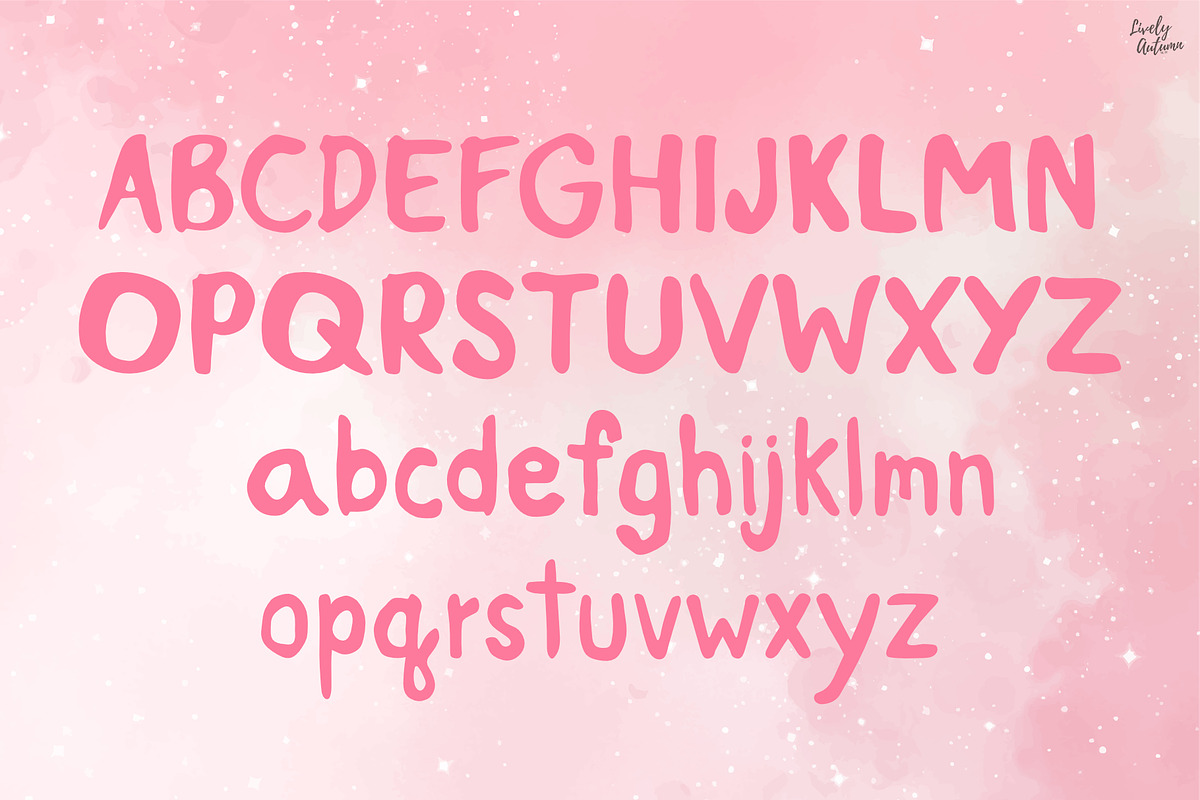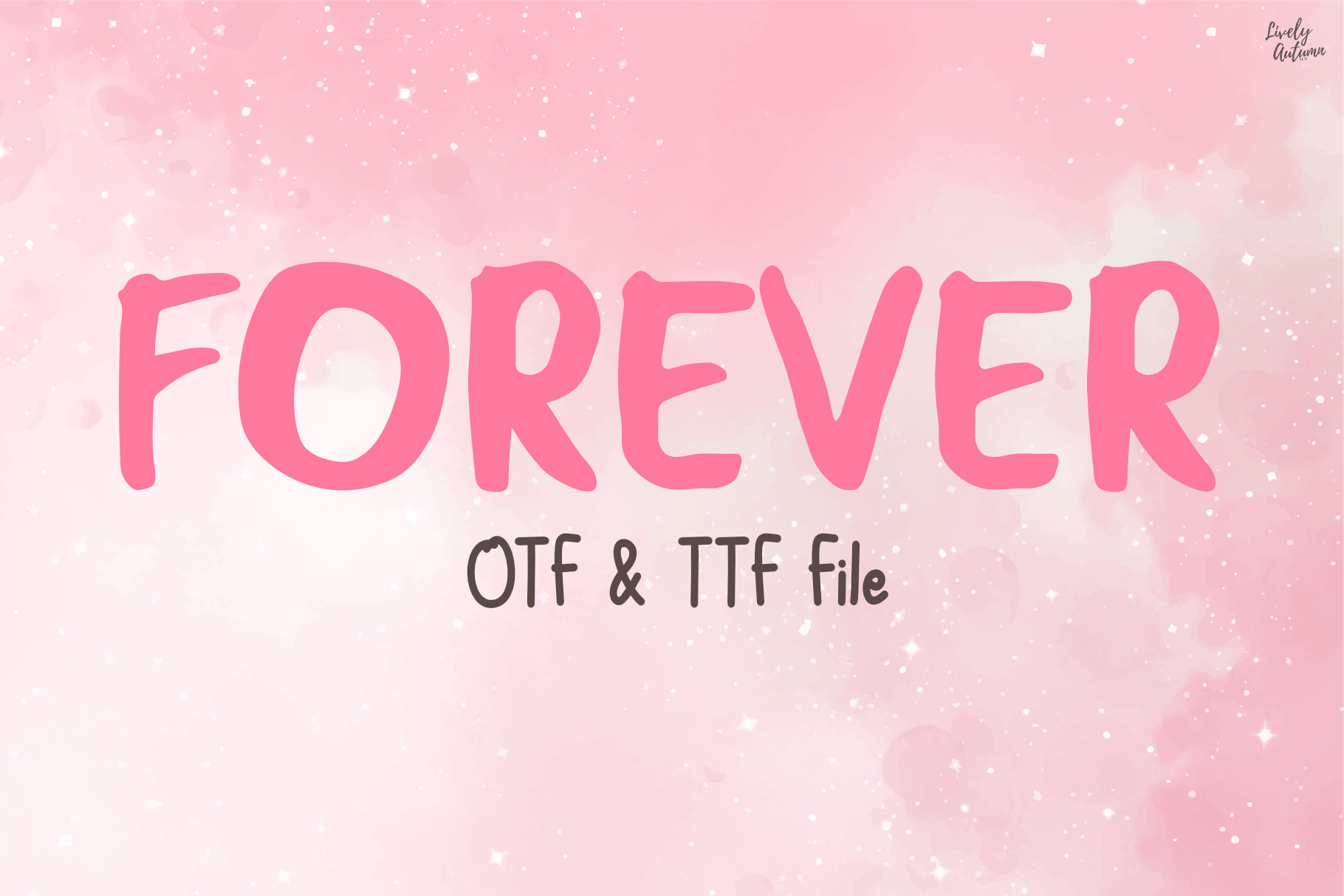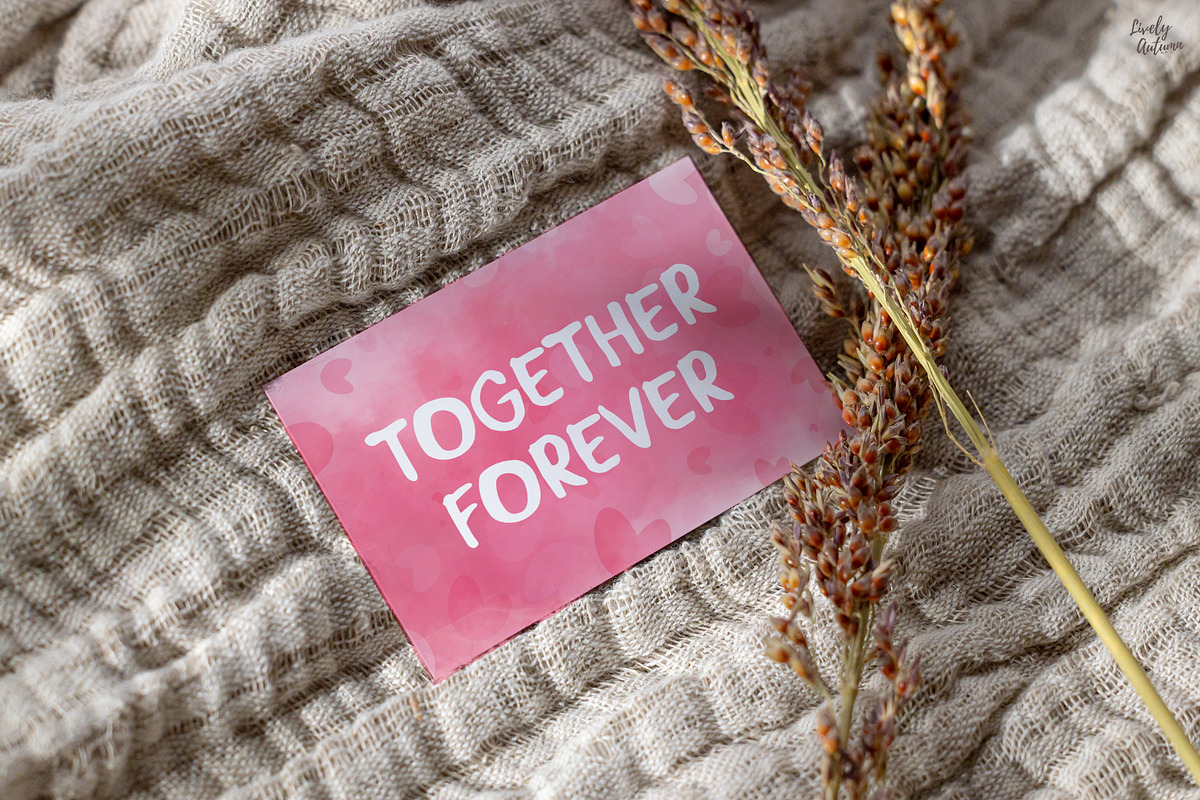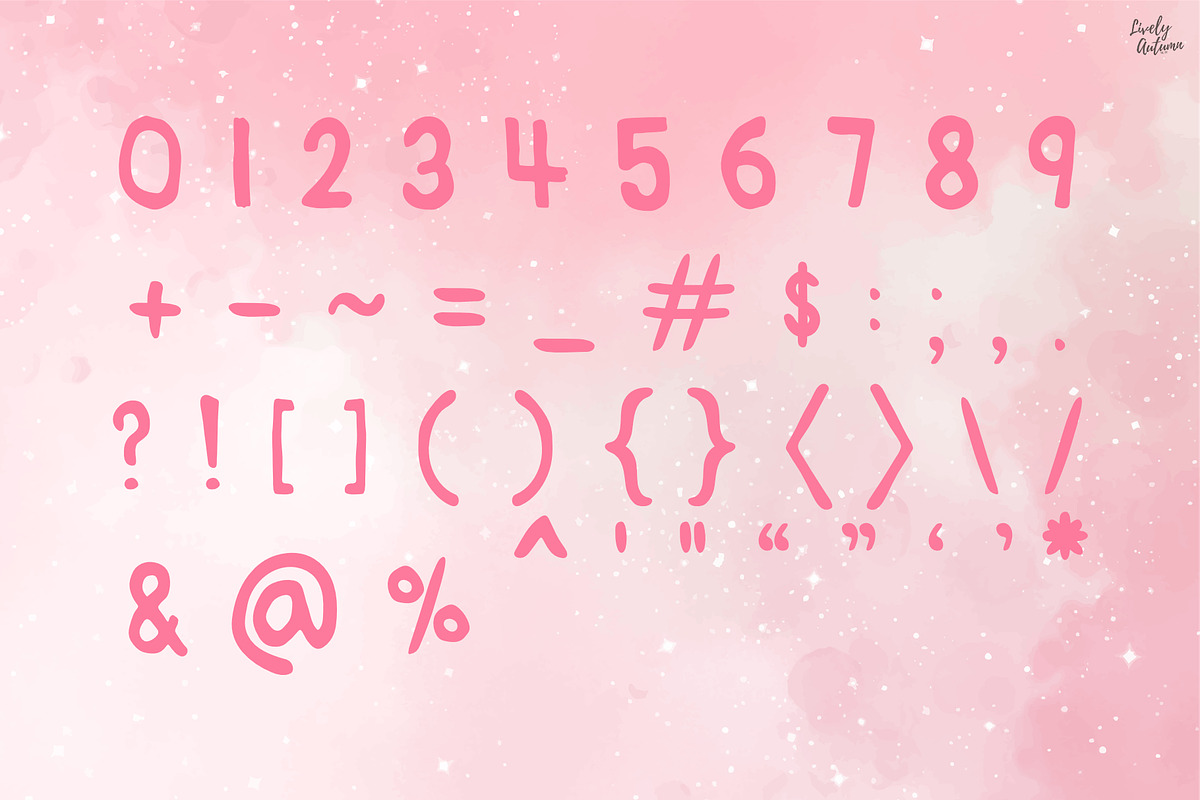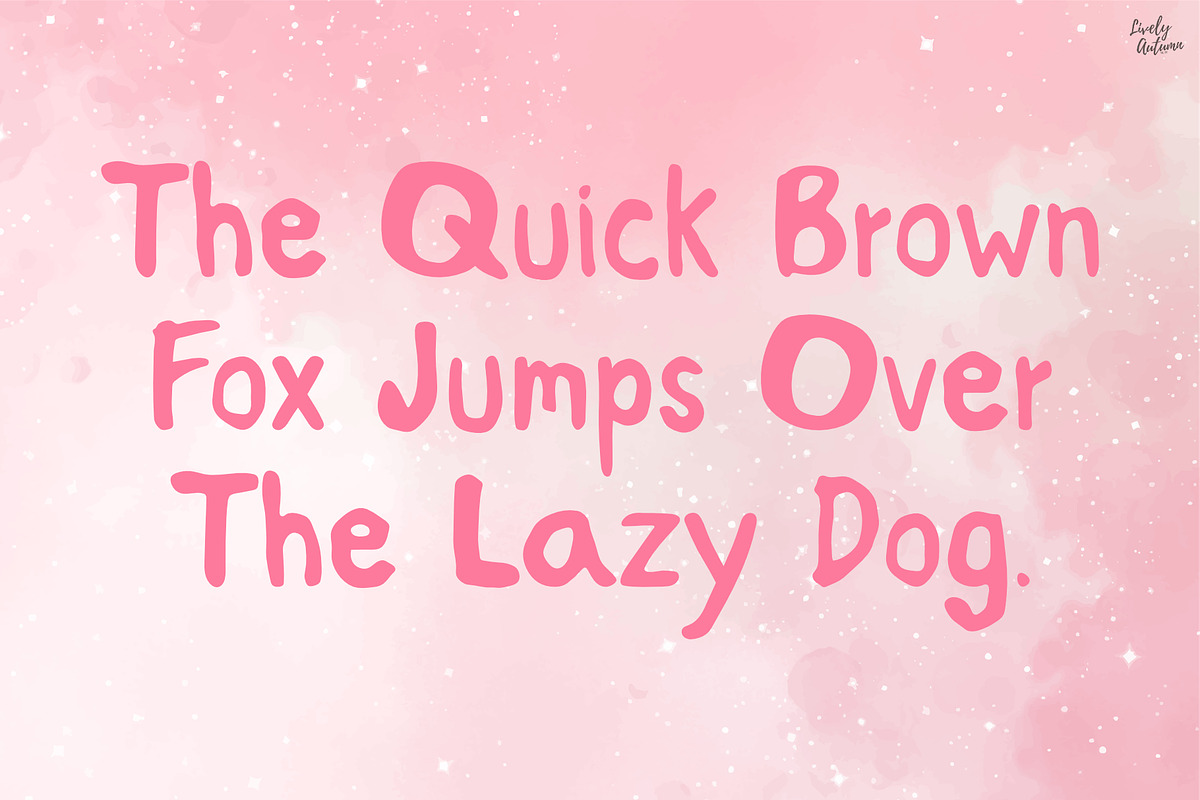
Forever | Handwriting font
Forever Font is a handwriting font written with a paintbrush. Perfect for your personal projects, Valentine projects and various project. From invitations to posters, social media graphics, journals, greeting cards, and much more.
- Font includes: uppercase, lowercase, numbers, and punctuation.